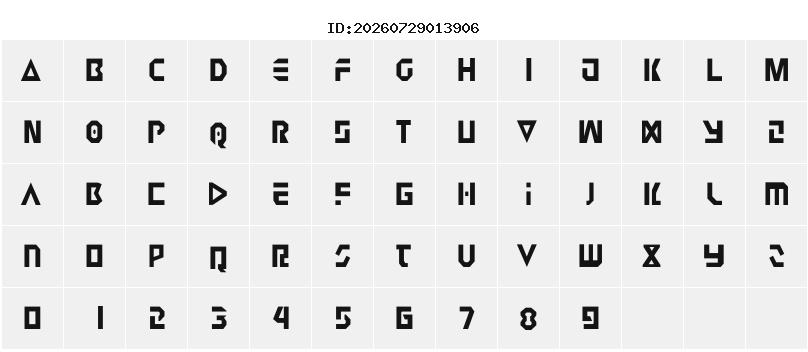
Judge Hard Preview
About Judge Hard.ttf
Judge Hard.ttf is a modern, elegant sans-serif font designed for ultimate readability and visual harmony. Perfect for branding, headlines, web design, and print materials.